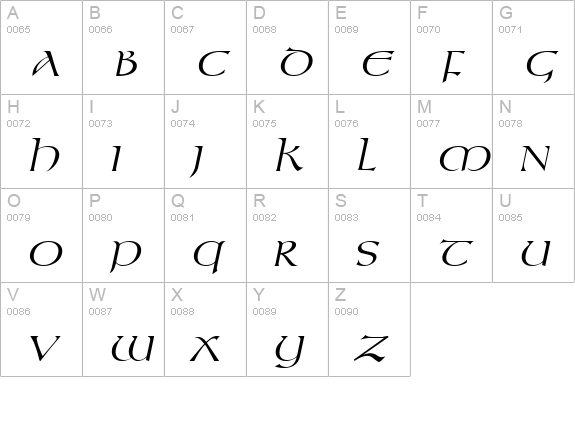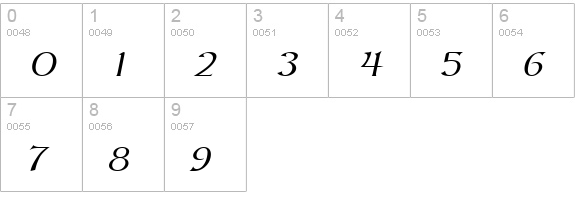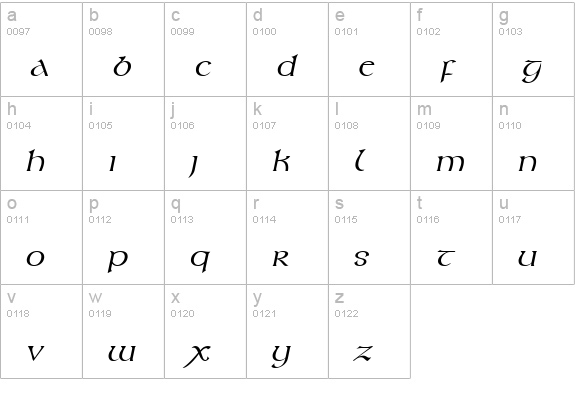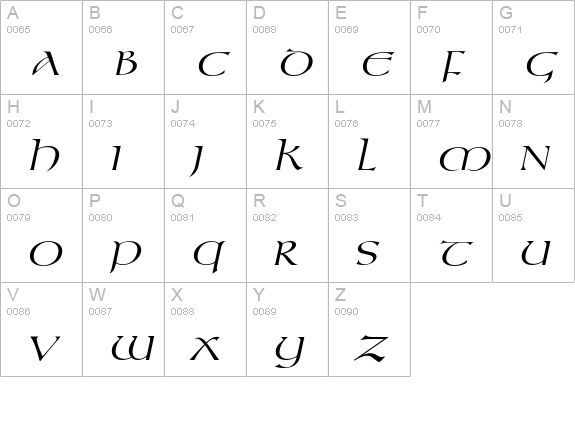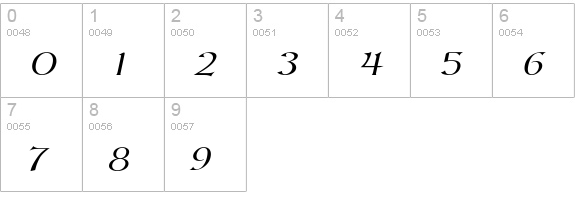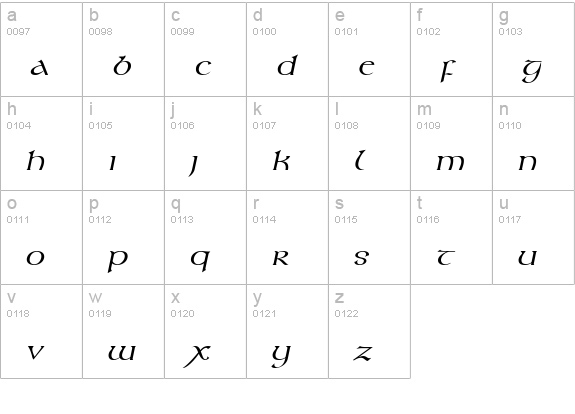
Kelt Wide Italic is a distinctive, extended-width, italic variant in the Kelt typeface family \xE2\x80\x94 well suited to design and typography projects.
Introducing Kelt Wide Italic font, a truly captivating and versatile typeface that will instantly elevate your design projects to new heights. With its unique and eye-catching italic style, Kelt Wide Italic effortlessly blends elegance and modernity, making it the perfect choice for a wide range of creative endeavors. This font boasts a distinctive and fluid letterform design that exudes sophistication and charm. Each character is carefully crafted to maintain a harmonious balance between style and legibility, ensuring a seamless reading experience for your audience. From headlines to body text, Kelt Wide Italic effortlessly adds a touch of class and sophistication to any design. One of the most remarkable features of the Kelt Wide Italic font is its versatility. Whether you're working on a logo, packaging design, editorial layout, or website, this font adapts effortlessly to various contexts, making it a reliable and flexible tool in your design arsenal. But what truly sets Kelt Wide Italic apart is its accessibility. We understand the importance of providing designers with resources that are readily available, and that's why we are thrilled to announce that Kelt Wide Italic is available for free! Yes, you heard it right. This exceptional font can be freely downloaded at FontsMarket.com, ensuring that every designer, regardless of their budget, can access and utilize this remarkable typeface. So, whether you're a seasoned professional or an aspiring designer, Kelt Wide Italic is a must-have font that will undoubtedly enhance your creative projects. Download it now from FontsMarket.com, and let your designs shine with unparalleled elegance and flair.